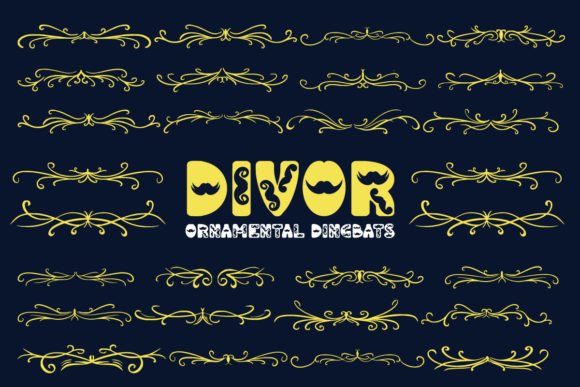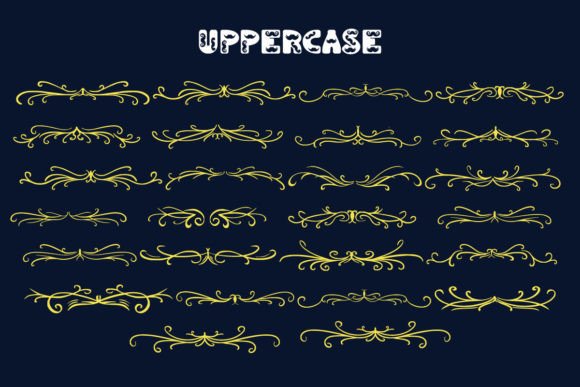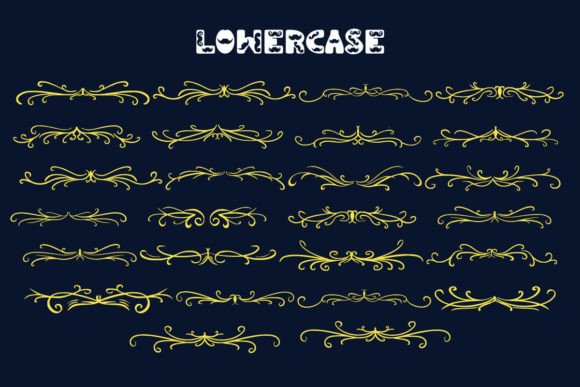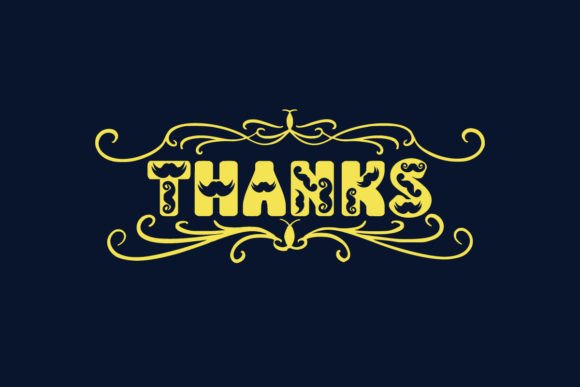
Divor Font
About Divor Font
Introducing our unique vintage and ornamental style custom dingbat font, perfect for adding a touch of retro or vintage flair to your branding projects. This font is a must-have for designers seeking to evoke a nostalgic and timeless aesthetic in their work.
Our dingbat font is meticulously crafted to capture the essence of vintage design elements. It features a wide range of ornamental symbols, decorative motifs, and charming illustrations that can be easily incorporated into your branding materials. Whether you’re working on a logo, packaging design, website, or any other project that calls for a vintage touch, this font is the ideal choice.
With its extensive collection of symbols and illustrations, our dingbat font provides endless possibilities for customization and creative expression. You can effortlessly create unique patterns, borders, frames, and embellishments that will give your designs a distinctive vintage look. The ornamental details and intricate linework add a touch of sophistication and elegance to your branding materials.
Embrace the charm of vintage design and make a statement with your branding projects. Let our unique vintage and ornamental style custom dingbat font be your go-to resource for creating stunning retro-inspired visuals. Elevate your branding materials with a touch of nostalgia, capturing the essence of a bygone era.